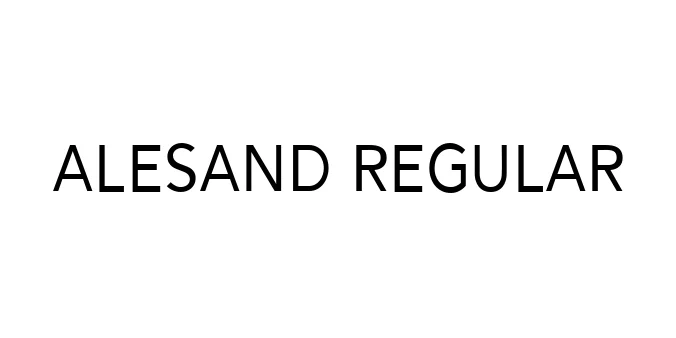
Alesand Regular
Designed by Creative Tacos
Alesand Regular is a sophisticated and minimalist sans-serif typeface designed to embody modern elegance and clarity. Characterized by its clean lines and geometric construction, this font was developed to provide designers with a versatile tool for both digital and print media. Its balanced proportions ensure high legibility, making it an excellent choice for contemporary branding projects that require a touch of professional polish without sacrificing aesthetic appeal.
Over time, Alesand has gained popularity in the creative community for its ability to seamlessly integrate into various design contexts, from high-end fashion editorial layouts to sleek tech startup identities. Whether used in large display formats or as subtle body text, the font maintains its integrity and visual impact. Its timeless design language ensures it remains a staple for designers looking for a reliable, neutral, yet stylish typographic solution.
Alesand Regular Best Uses
Perfect for creating clean and memorable brand identities.
Excellent for high-impact website hero sections and titles.
Ideal for creating trendy and minimalist graphic posts.
Well-suited for magazine layouts, brochures, and minimalist posters.